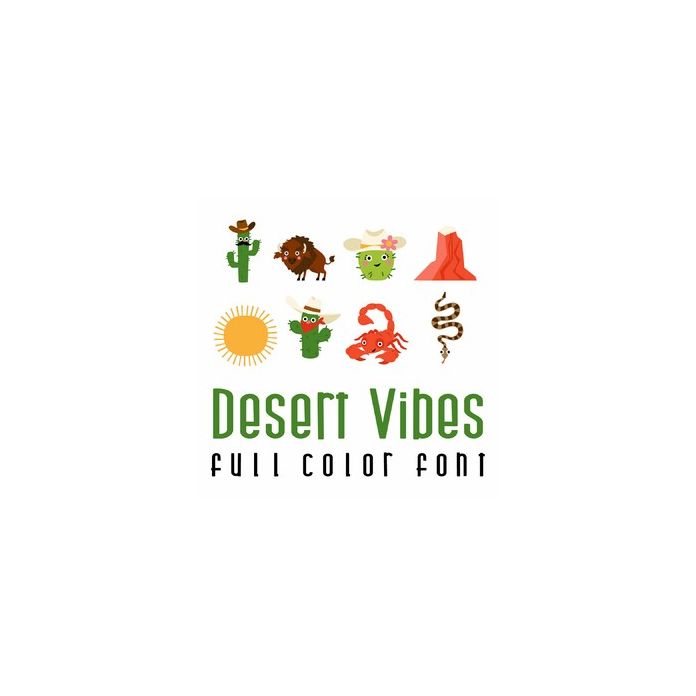
This adorable full color doodlebat font features adorable desert animals and cacti in the wild west. Perfect for cards, crafts, gifts, decor, scrap book pages, planner stickers and more!